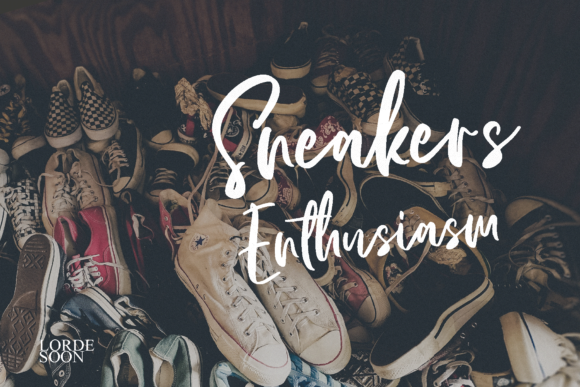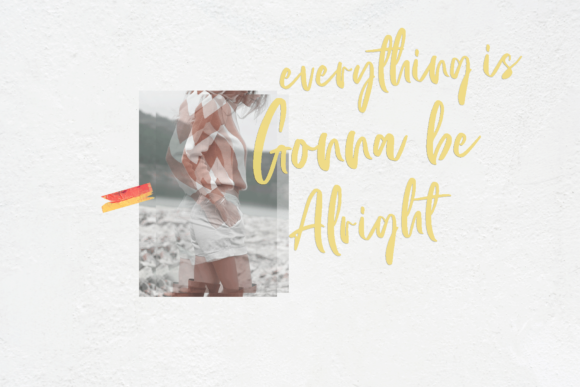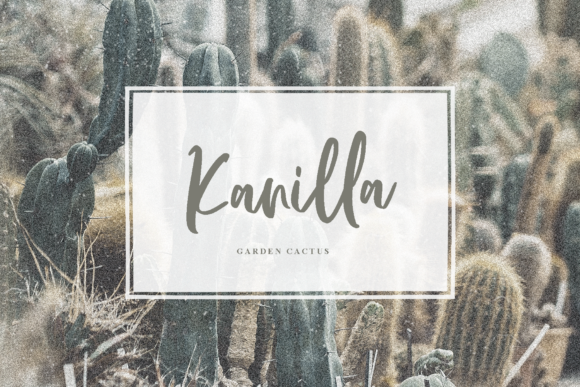
Introduction to Lorde Soon Font
The Lorde Soon is an elegant script font.
Its great width makes it usable for all sorts of media designs This dashing typeface can be used for quotes, watermarks, business cards, wedding designs, everything related to advertising and more.